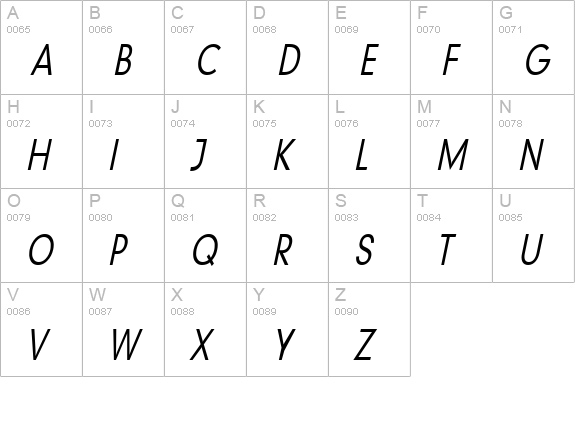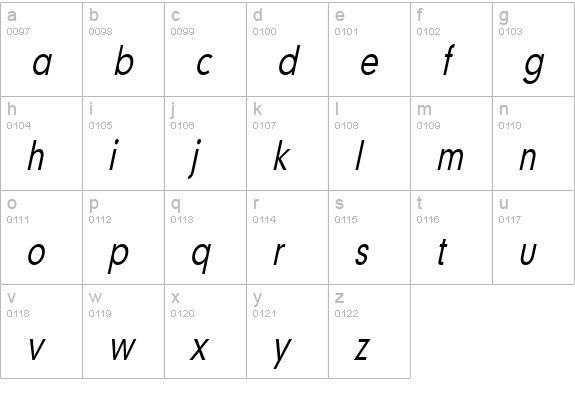
Geo 579 Thin Italic is a delicate, low-contrast, italic variant in the Geo typeface family \xE2\x80\x94 well suited to fashion editorial, minimal branding, and high-contrast display.
Geo 579 Thin Italic is a stunning and elegant font that exudes sophistication and modernity. With its sleek and slender design, this typeface is perfect for adding a touch of finesse to any project. The thin, italicized characters convey a sense of grace and refinement, making it ideal for use in fashion magazines, luxury branding, and high-end design projects. What sets Geo 579 Thin Italic apart is that it is not only visually appealing but also versatile in its application. Whether you're creating a logo, designing a website, or laying out a brochure, this font will elevate your work and give it a stylish edge. Best of all, Geo 579 Thin Italic is free for download at FontsMarket.com. This means you can easily access this beautiful font without any cost, making it a valuable addition to your design toolkit. Don't miss out on the opportunity to enhance your projects with the beauty and sophistication of Geo 579 Thin Italic – download it today and elevate your designs to new heights.